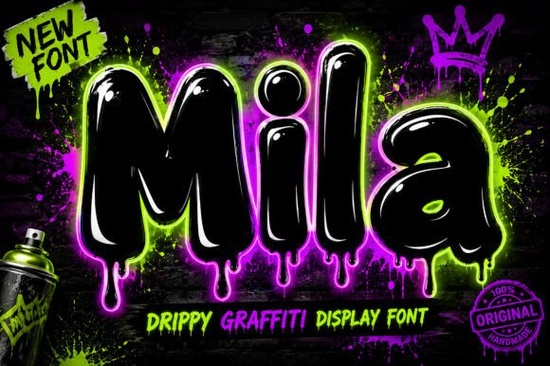
If you design for kids’ brands, gaming channels, or anything that needs a shot of cheerful energy, you know how hard it is to find a font that’s both wildly playful and still easy to read. Mila Font solves that puzzle with glossy, bubble-like letters that drip personality literally. The typeface combines round, puffy shapes with tiny highlight dots and swooping drip details, making every word look like it’s been dipped in syrup or wet paint. The result is a bold display font that feels right at home on children’s book covers, gaming thumbnails, and vibrant sticker packs.
What makes Mila Font different from other bubbly display fonts?
Most bubble fonts lean either soft and cuddly or harsh and tag-style. Mila finds a middle ground. The letters are generously rounded and easy to recognize, but the drippy accents and glossy highlights add a street-art-meets-cartoon edge. Each character includes built-in decorative elements think tiny pendant drops and wet-look reflections so you don’t need separate splatter overlays. This keeps your design file clean and your workflow fast, whether you’re mocking up a T-shirt graphic or a Twitch overlay. The font comes with uppercase and lowercase, numbers, punctuation, and those special drippy alternates, which means you can create multi-line titles without losing the cohesive look.
Which creative projects suit Mila best?
Mila’s sugary, comic-inspired design makes it surprisingly versatile. It works beautifully on:
- Children’s party invitations and birthday décor
- YouTube thumbnails for gaming, toy unboxing, or family vlogs
- Print-on-demand products like kids’ tees, hoodies, and tote bags
- Sticker sets, enamel pin mockups, and die-cut labels
- Lighthearted branding for candy shops, ice cream parlors, or play cafés
- Social media graphics that need to stand out instantly
Because the letters stay clear even at smaller sizes (though it’s truly a display font, best used above 24pt), it also manages to work on packaging and short product names where you want a youthful, energetic vibe without sacrificing legibility.
Is Mila easy to read for children’s books and product labels?
Absolutely. Despite the drips and playful bulges, the letterforms follow familiar shapes no overly distorted glyphs that confuse early readers. The counters (the inside spaces of letters like ‘a’ and ‘e’) remain open, which helps with quick recognition. When you set a word like “CANDY” in Mila, the overall silhouette is clear, even if the edges are a little wobbly and wet. This makes it a favorite among designers who create educational materials, kid-friendly cosmetics, or snack packaging. You still get the cartoon personality, but you don’t have to sacrifice the instant readability that young audiences and busy parents depend on.
How does Mila stack up against other playful and sporty display fonts?
Mila shines brightest when your project needs a glossy, almost edible look. But if your brief calls for something different, it helps to know what’s out there. For a rougher, street-style edge, a rugged grunge typeface might deliver the worn texture Mila purposely avoids. If you need a chunky, hand-drawn feel that’s less about shine and more about marker strokes, this playful hand-lettered option fills that gap. When the mood is softer and more glittery think unicorn themes or pastel party decor a soft, sparkling bubble script could be a better fit. Designers working on sports merch or gaming clan logos often reach for an energetic athletic type bundle that includes banners and jersey numbers. And for classic school spirit wear or retro-inspired apparel, a classic varsity serif brings a timeless, preppy contrast. Understanding these alternatives helps you decide when Mila’s drippy gloss is exactly the right ingredient.
Quick checklist: when should you pick Mila Font?
- Is the audience young or young-at-heart? If your design speaks to kids, gamers, or playful adults, Mila hits the right note.
- Does the project need glossy, drip-style lettering? Mila’s built-in highlights and droplets save you from adding separate effects.
- Will the text be used at display sizes? Use it for headlines, logos, or short phrases; avoid large blocks of body text.
- Do you need numbers, punctuation, and special characters? Mila includes a full set, so you won’t be stuck with a missing exclamation mark.
- Is a cheerful, cartoon energy the goal? If yes, this font will instantly dial up that feeling.